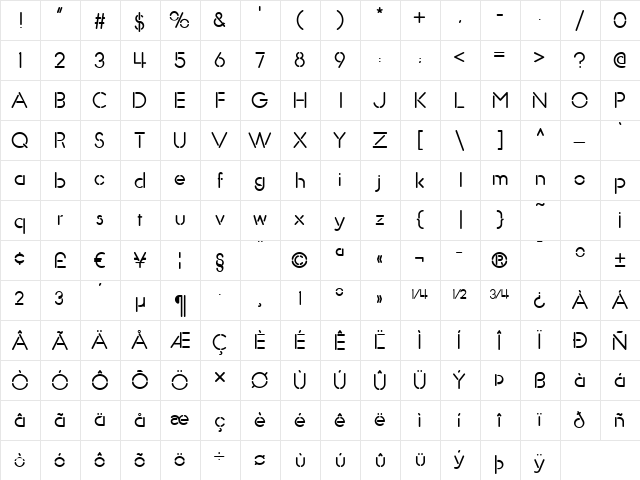
CrisafulliLight Regular
Design Context for CrisafulliLight Typeface
CrisafulliLight offers clean, dependable letterforms without strong stylistic allegiance, making it a practical choice for designers who need flexibility. The delicate stroke weight brings airiness and refinement to layouts.